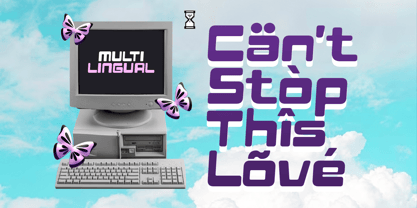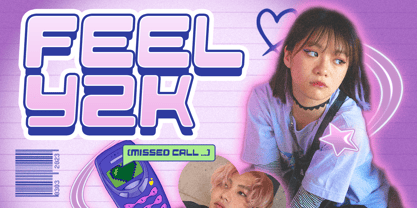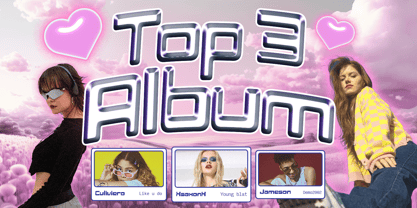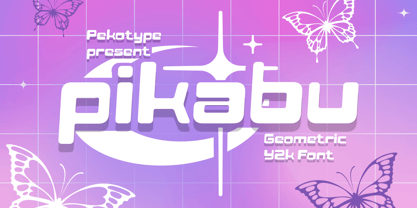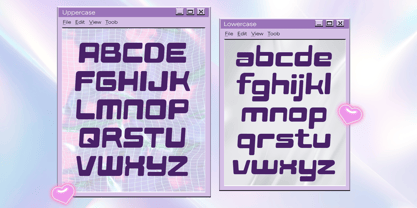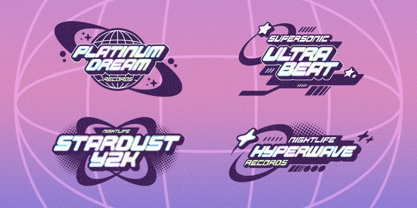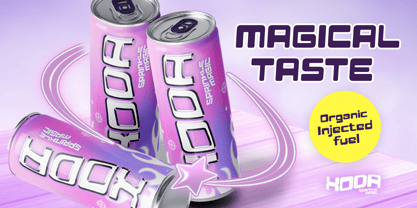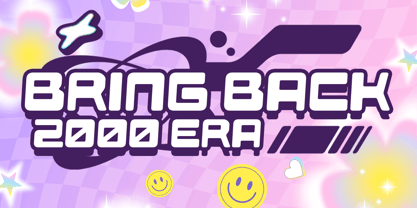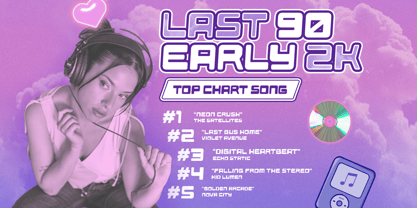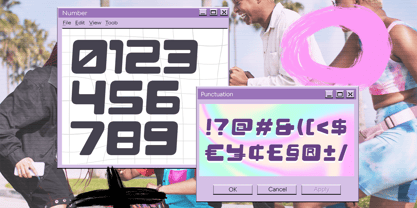
Pikabu
by Pekotype
The Pikabu Font Family was designed by Galang Bryan and published by Pekotype. Pikabu contains 1 styles. More about this family
PIKABU is a playful Y2K-inspired display font that brings back the bold and futuristic style of the early 2000s. With its smooth curves and modern retro look, it’s perfect for branding, logos, posters, packaging, social media content, album covers, and fashion projects. Designed to be fun, energetic, and eye-catching, PIKABU helps create designs that feel fresh, youthful, and full of personality.